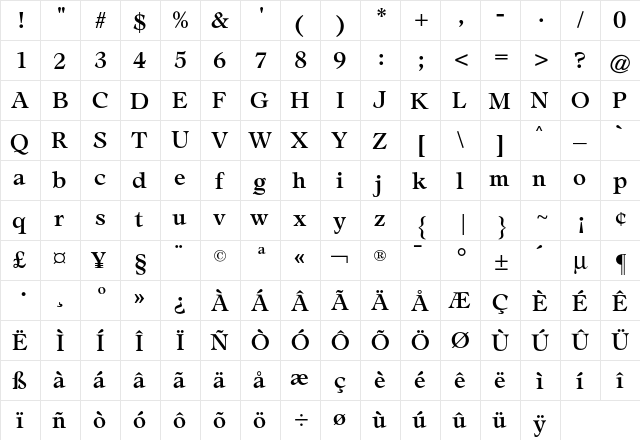
Adroit CG Medium Regular
Design Context for Adroit CG Medium Typeface
Adroit CG Medium is a composed and adaptable typeface that performs quietly and consistently across a wide range of design contexts.
Pro Tip: Pair Adroit CG Medium with a font of contrasting weight or personality to build a more expressive typographic hierarchy.